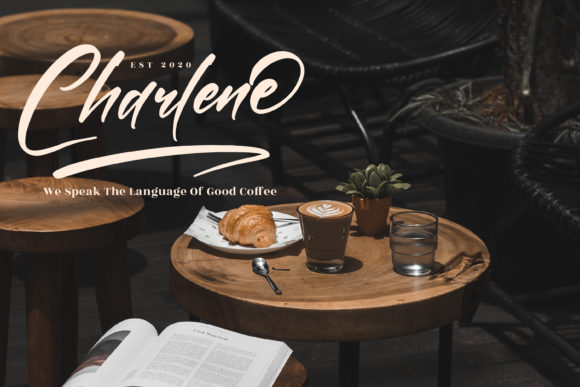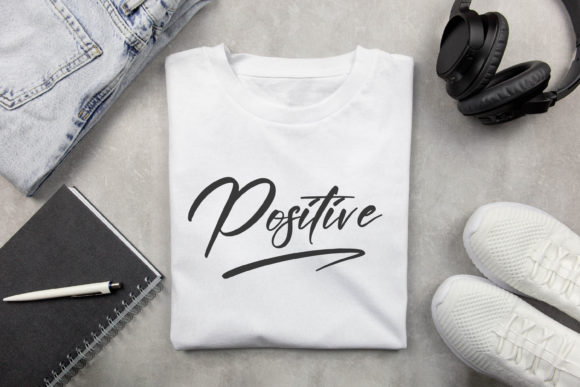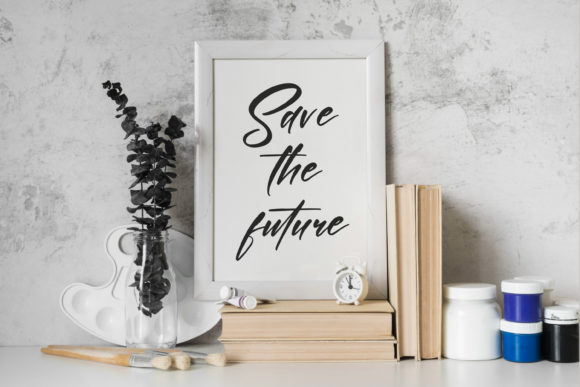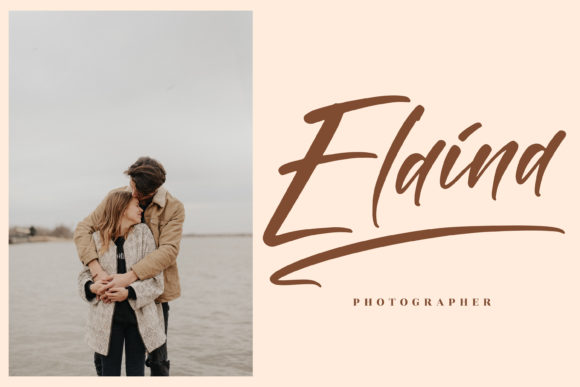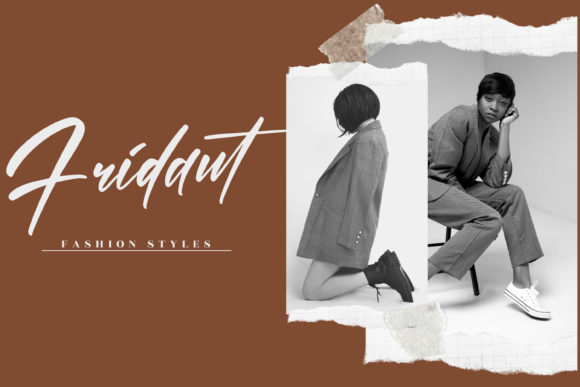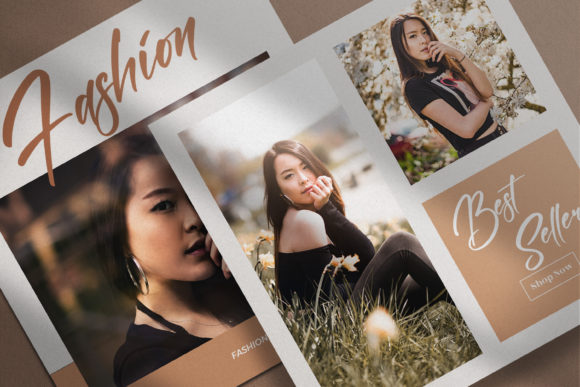
Introducing Constalica Font: The Ultimate Luxury Handwritten Font for Designers and Crafters
Are you a designer or crafter looking for a font that exudes luxury and timelessness? Look no further than Constalica Font! This stunning handwritten font is perfect for creating eye-catching logos, branding, and quotes that will leave a lasting impression on your audience. In this article, we’ll dive into the features and benefits of Constalica Font, and explore why it’s the best choice for your design needs.
What is Constalica Font?
Constalica Font is a beautifully crafted handwritten font that boasts a luxurious and elegant feel. Its timeless design makes it perfect for a wide range of applications, from logo design and branding to quotes and social media graphics. With its flowing lines and intricate details, Constalica Font is sure to add a touch of sophistication to any design project.
Key Features of Constalica Font
- PUA Encoded: Constalica Font is PUA (Private Use Area) encoded, which means that you can access all of the glyphs and swashes with ease. This makes it simple to customize your designs and add unique touches to your work.
- Luxurious and Timeless Design: Constalica Font features a luxurious and timeless design that will elevate your designs to the next level. Its elegant lines and intricate details make it perfect for high-end branding and design projects.
- Handwritten Style: Constalica Font has a beautiful handwritten style that adds a personal touch to any design project. Its unique and organic feel makes it perfect for creating eye-catching logos, branding, and quotes.
Why Choose Constalica Font?
So why choose Constalica Font over other fonts on the market? Here are just a few reasons why designers and crafters love this luxurious handwritten font:
- Unique and Eye-Catching: Constalica Font is a unique and eye-catching font that will set your designs apart from the crowd. Its luxurious and timeless design makes it perfect for high-end branding and design projects.
- Versatile: Constalica Font is versatile and can be used for a wide range of applications, from logo design and branding to quotes and social media graphics.
- High-Quality: Constalica Font is a high-quality font that is designed to deliver exceptional results. Its intricate details and elegant lines make it perfect for printing and digital use.
- Experiment with Glyphs and Swashes: With Constalica Font’s PUA encoding, you can access all of the glyphs and swashes with ease. Experiment with different combinations to add unique touches to your designs.
In conclusion, Constalica Font is a luxurious and timeless handwritten font that is perfect for designers and crafters looking to elevate their designs. With its PUA encoding, luxurious design, and ease of use, Constalica Font is the ultimate choice for creating eye-catching logos, branding, and quotes. Whether you’re a seasoned designer or just starting out, Constalica Font is sure to become a staple in your design toolkit.